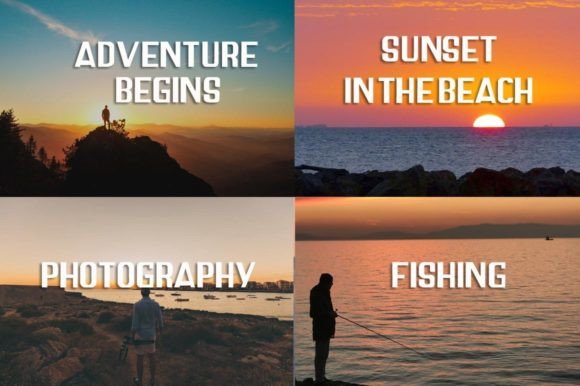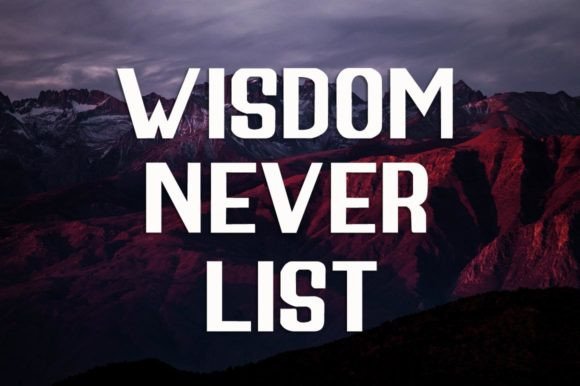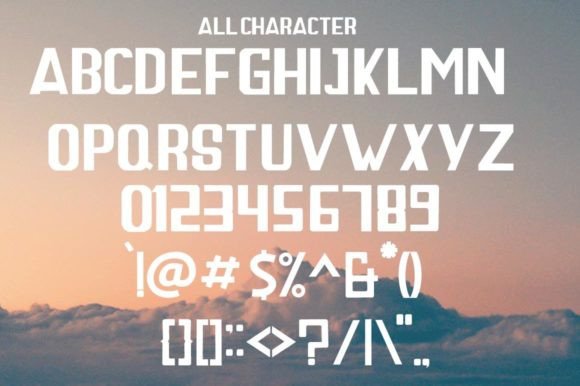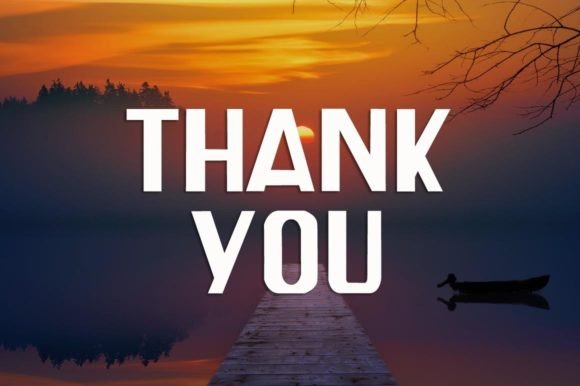
Introducing Good Morning Font: A Versatile Sans Serif Typeface with a Vintage Twist
Are you tired of using the same old fonts in your designs? Look no further than Good Morning Font, a versatile sans serif typeface that’s perfect for a multitude of different uses. With its unique blend of modern and vintage elements, Good Morning Font is sure to add a touch of character to any design.
A Brief Overview of Good Morning Font
Good Morning Font is a sans serif typeface that’s been carefully crafted to have a bit of a vintage, retro look. Its clean lines and simple shapes make it perfect for use in a wide range of designs, from logotypes and graphical lettering to vintage graphics and more. Whether you’re a designer, craft, or simply someone who loves to dabble in graphic design, Good Morning Font is a great addition to your font library.
What Makes Good Morning Font So Versatile?
So, what makes Good Morning Font so versatile? For starters, its sans serif design makes it perfect for use in a wide range of applications, from digital designs to print materials. Additionally, its vintage twist gives it a unique character that’s sure to help your designs stand out from the crowd.
Here are just a few examples of the many different uses for Good Morning Font:
- Logotypes: Good Morning Font is perfect for creating custom logotypes that are both modern and memorable.
- Graphical Lettering: Add a touch of personality to your graphical lettering with Good Morning Font’s unique vintage twist.
- Vintage Graphics: Create authentic-looking vintage graphics with Good Morning Font’s retro-inspired design.
- Signage: Good Morning Font is a great choice for signage, whether you’re creating a custom sign for a business or simply looking for a font to use in a DIY project.
Tips for Using Good Morning Font in Your Designs
Now that you know a bit more about Good Morning Font, here are a few tips for using it in your designs:
- Experiment with different sizes: Good Morning Font looks great in a wide range of sizes, from small and delicate to large and bold.
- Play with color: Good Morning Font is a versatile font that can be used with a wide range of colors and color schemes.
- Mix and match: Don’t be afraid to mix and match Good Morning Font with other fonts to create a unique and eye-catching design.
Why Designers and Crafters Love Good Morning Font
So, why do designers and crafters love Good Morning Font? Here are just a few reasons:
- Unique character: Good Morning Font has a unique character that’s sure to add a touch of personality to any design.
- Versatility: Good Morning Font is a versatile font that can be used in a wide range of applications.
- Easy to read: Despite its vintage twist, Good Morning Font is still easy to read, even at small sizes.
In conclusion, Good Morning Font is a versatile sans serif typeface that’s perfect for designers and crafters who are looking to add a touch of character to their designs. With its unique blend of modern and vintage elements, Good Morning Font is sure to be a great addition to any font library.
Whether you’re creating logotypes, graphical lettering, vintage graphics, or simply looking for a font to use in a DIY project, Good Morning Font is a great choice. So why not give it a try and see what you can create?